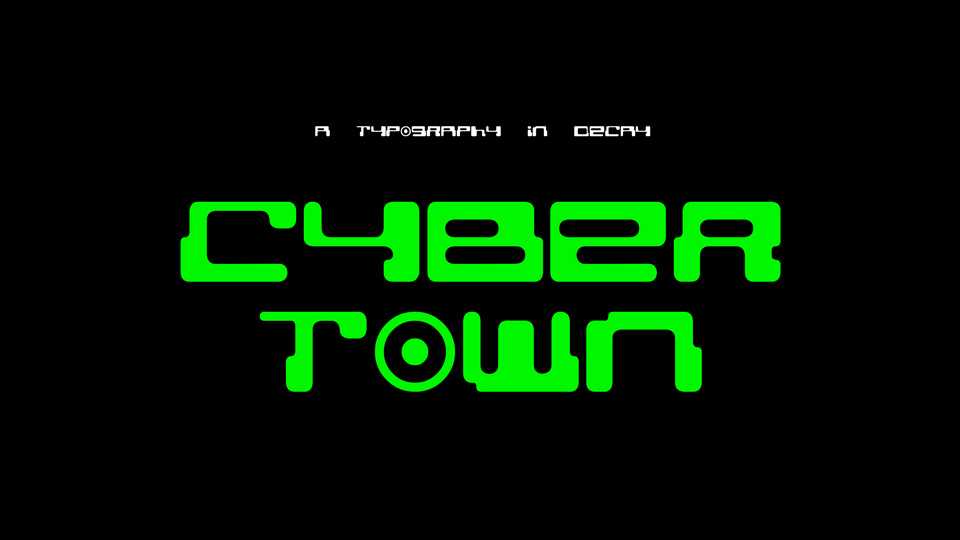
Download Cybertown font, a retro futuristic display typeface with a wide tenchy look. Cybertown is great for old school digital projects, posters, games and more.
Designer: Matt Perkins